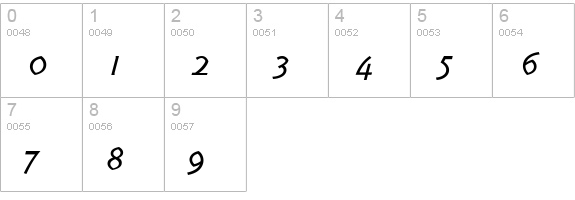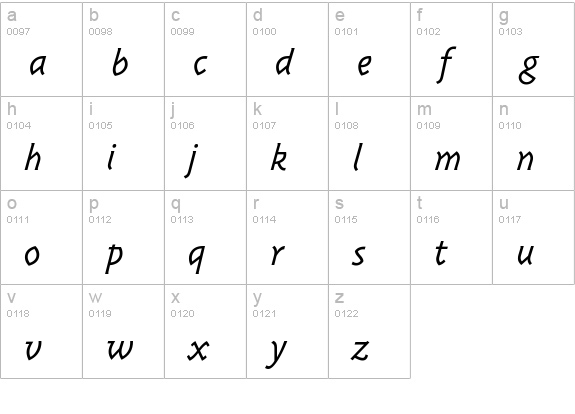
TriplexItalicLight Font Details
TriplexItalicLight is a modern and stylish font that exudes elegance and sophistication. With its sleek and slender design, this font is perfect for adding a touch of class to any project. The italicized letterforms create a sense of movement and grace, while the light weight adds a delicate and refined touch. This font is ideal for both professional and creative applications. Whether you're designing a logo, creating a website, or crafting a beautiful invitation, TriplexItalicLight will elevate your project to the next level. Its clean lines and balanced proportions make it easy to read and pleasant to look at, ensuring that your message is conveyed with clarity and impact. And the best part? TriplexItalicLight is completely free! This means that you can download and use it for personal and commercial projects without any restrictions. It's freely available to download at FontsMarket.com, a trusted source for high-quality fonts. So go ahead and unleash your creativity with TriplexItalicLight - it's the perfect choice for adding a touch of sophistication to your designs.